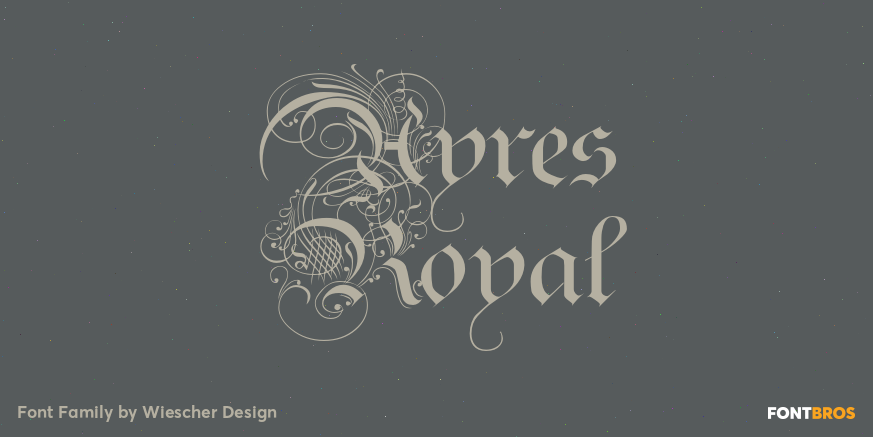
Ayres Royal
About Ayres Royal
I designed Ayres Royal to honour London\’s famous calligrapher John Ayres (about 1700). He designed calligraphy examples called The Accomplished Clerk, that were meant to be for the office clerk. I doubt if there were many clerks in those times, that…